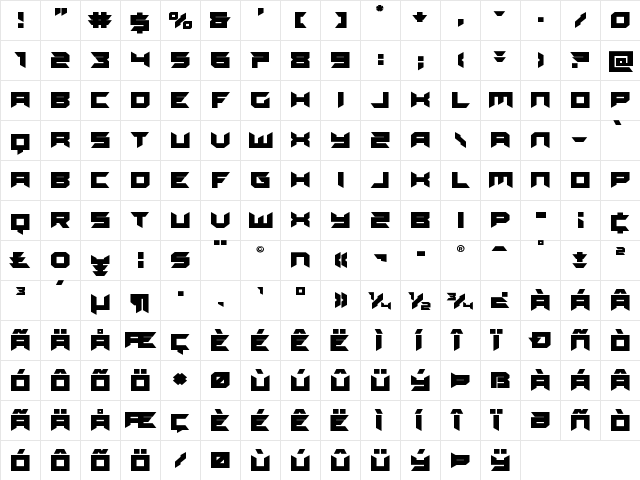
Dagger Dancer Expanded Regular
Design Context for Dagger Dancer Expanded Typeface
Dagger Dancer Expanded is a composed and adaptable typeface that performs quietly and consistently across a wide range of design contexts.